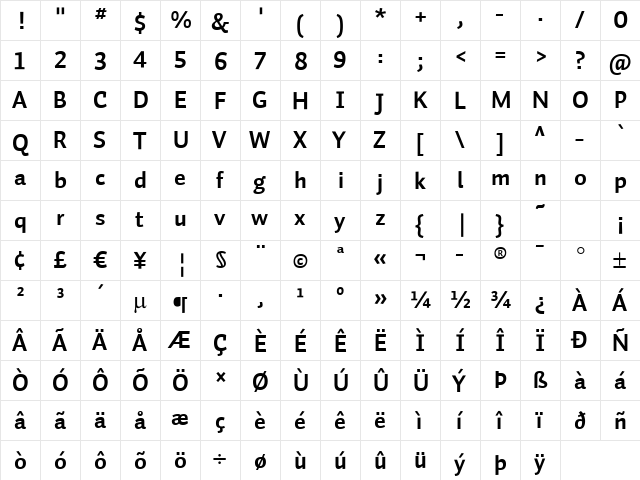
Auto 2 Bold LF
Design Context for Auto 2 Typeface
Auto 2 is a composed and adaptable typeface that performs quietly and consistently across a wide range of design contexts. The heavy weight commands attention and anchors typographic hierarchies.